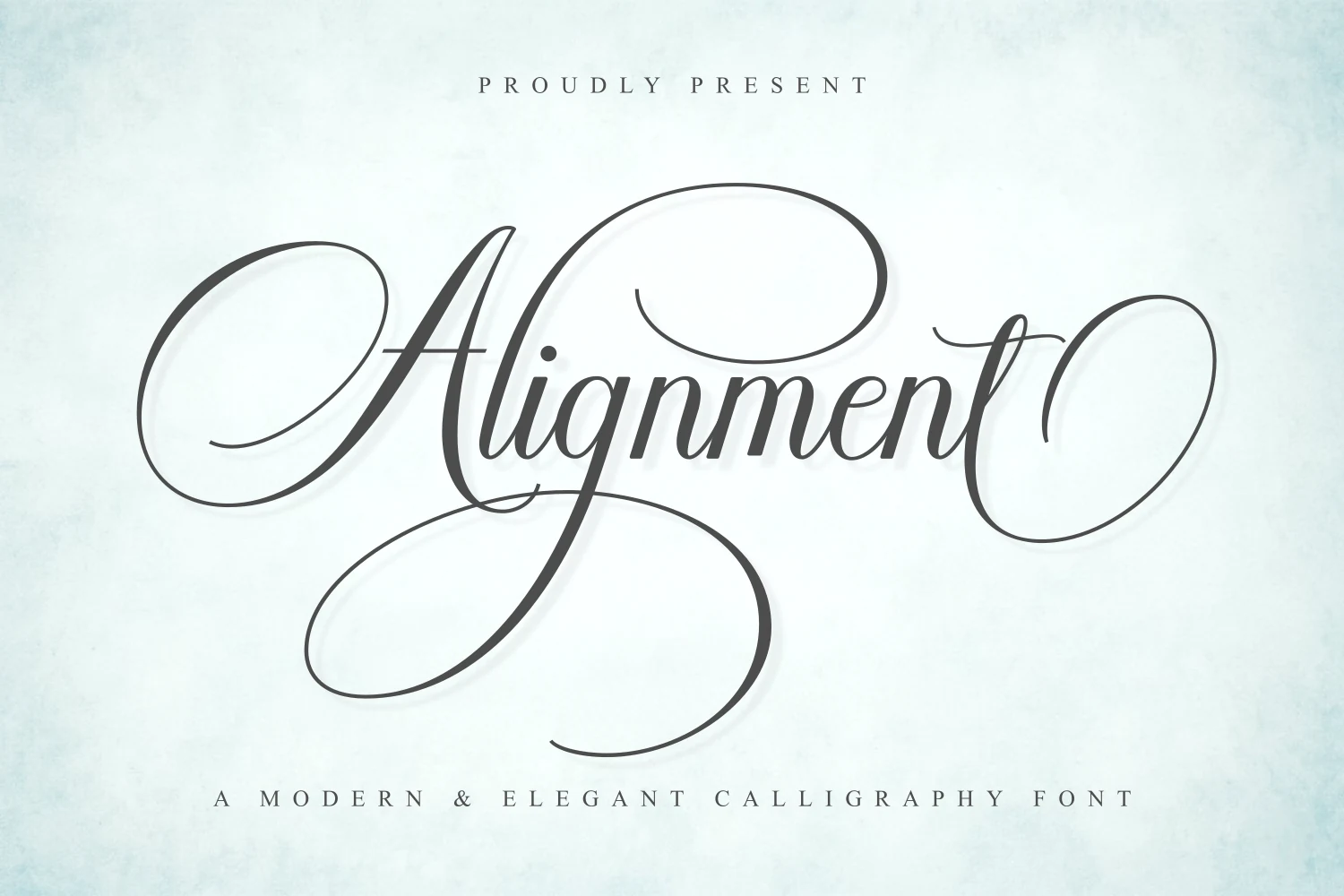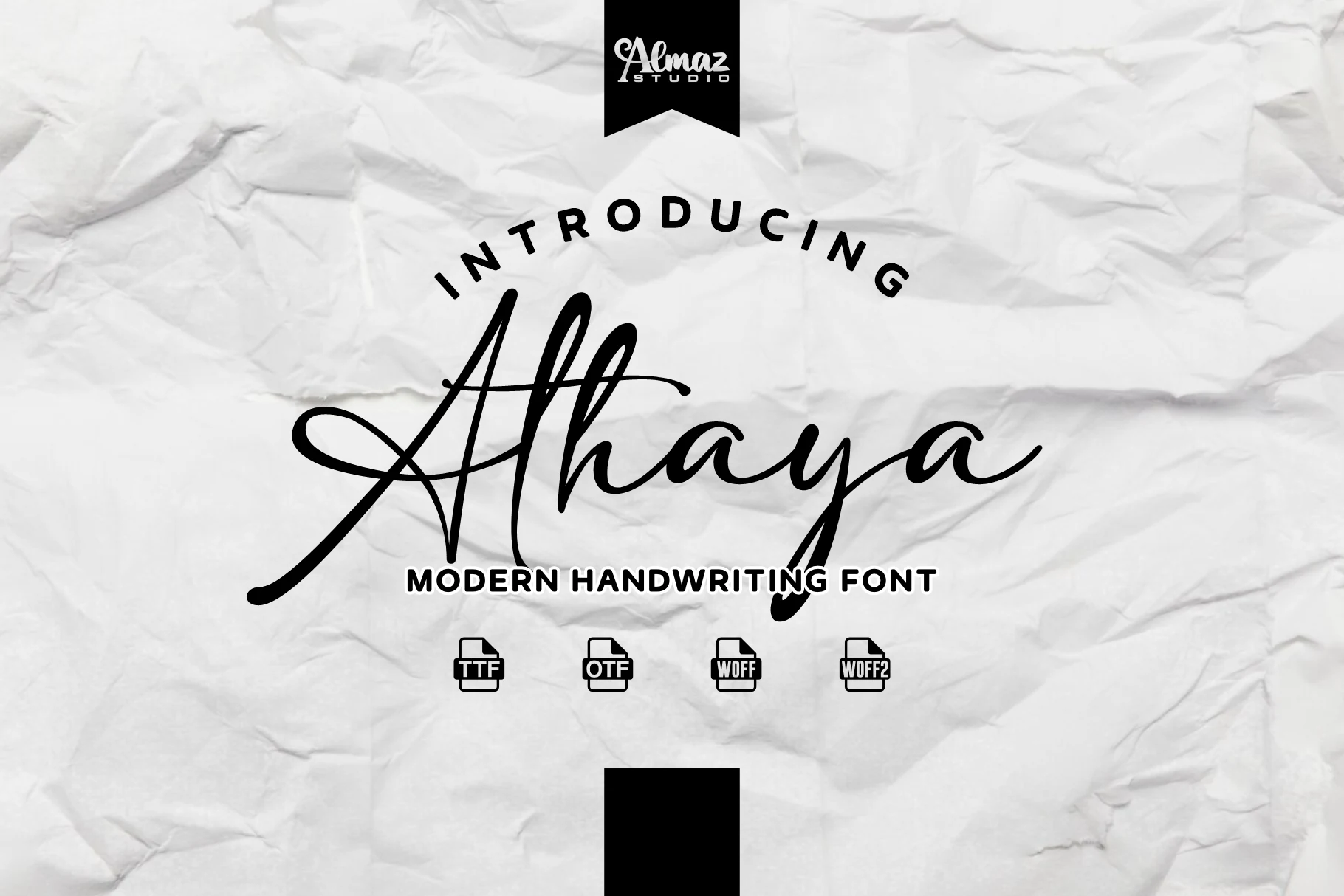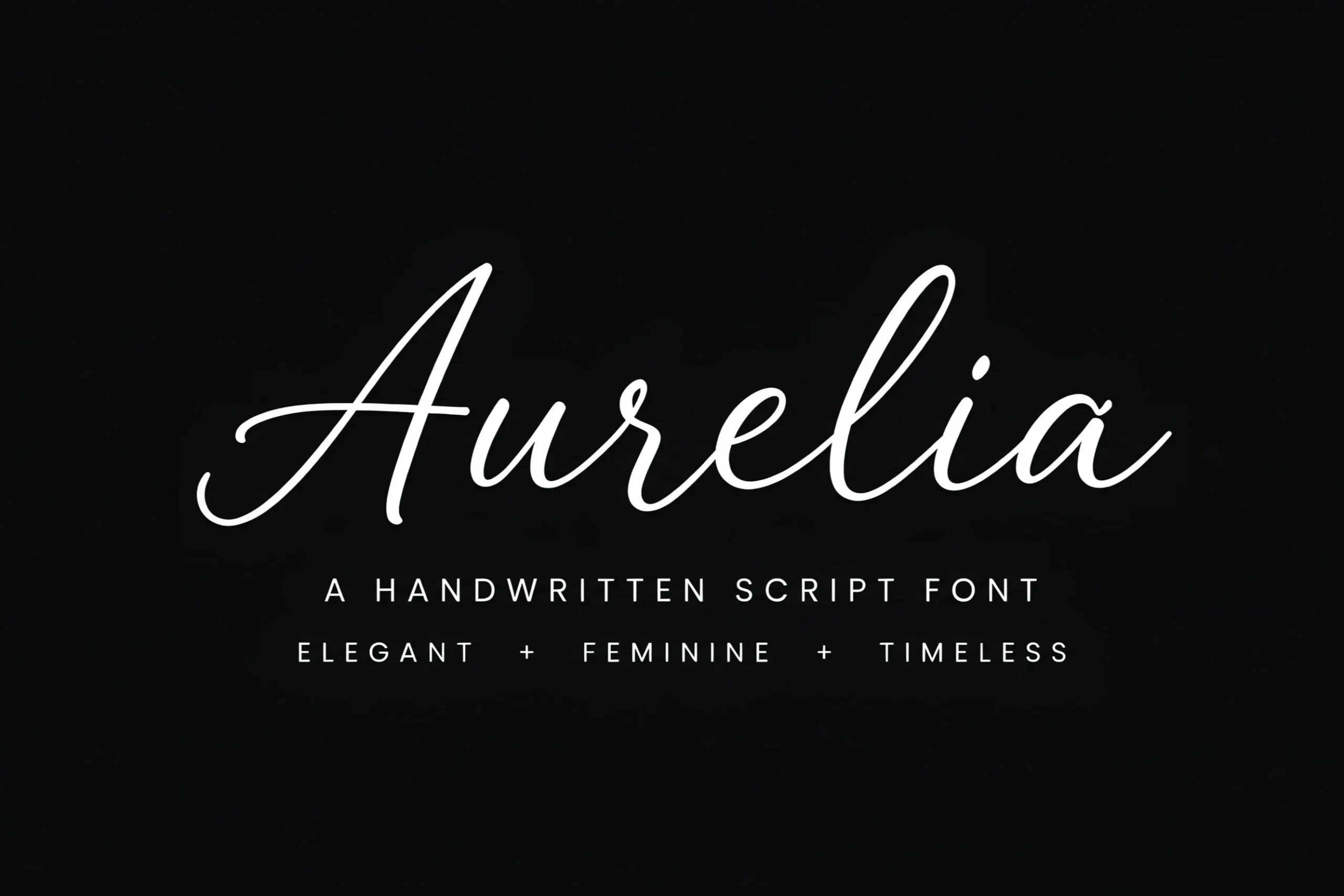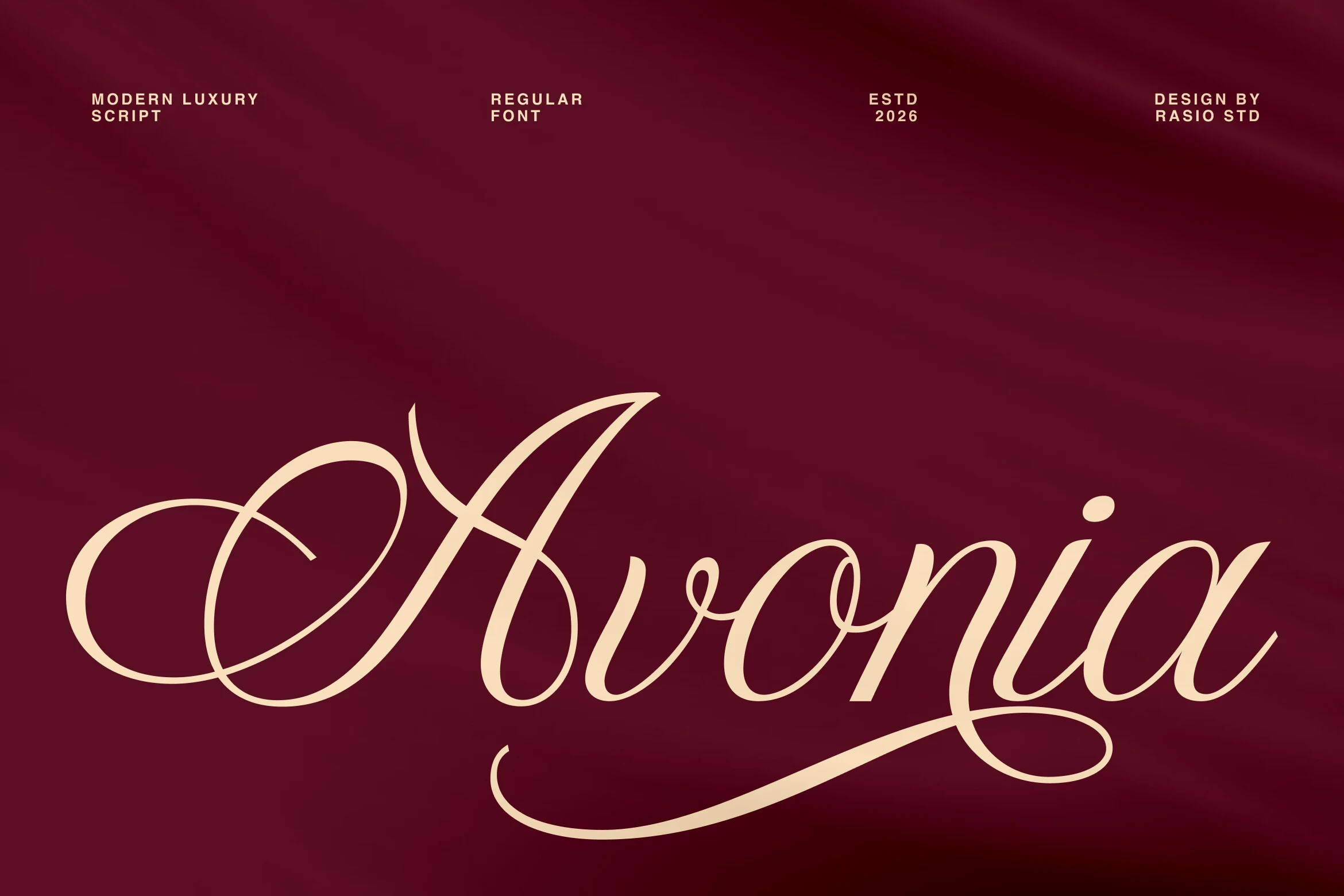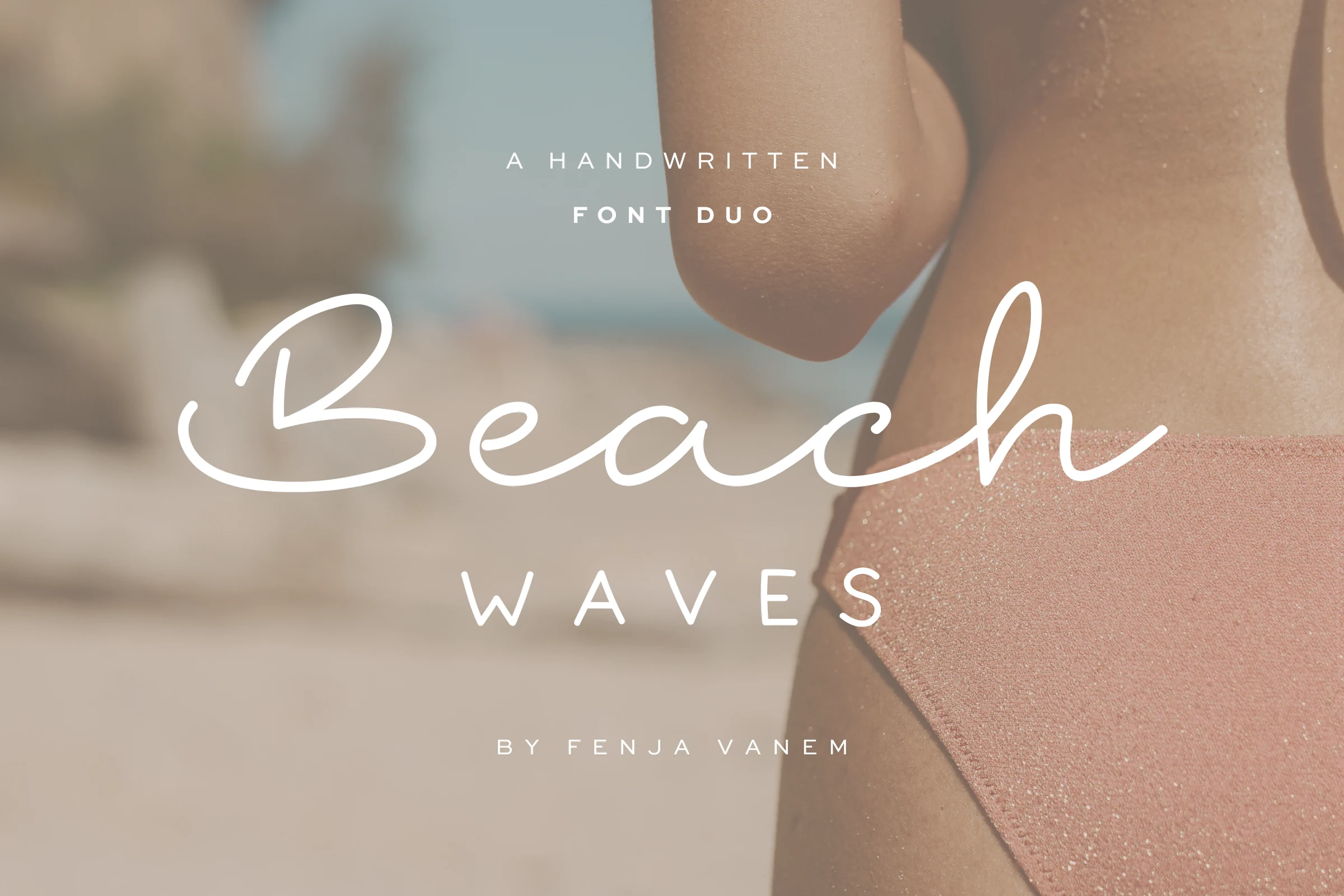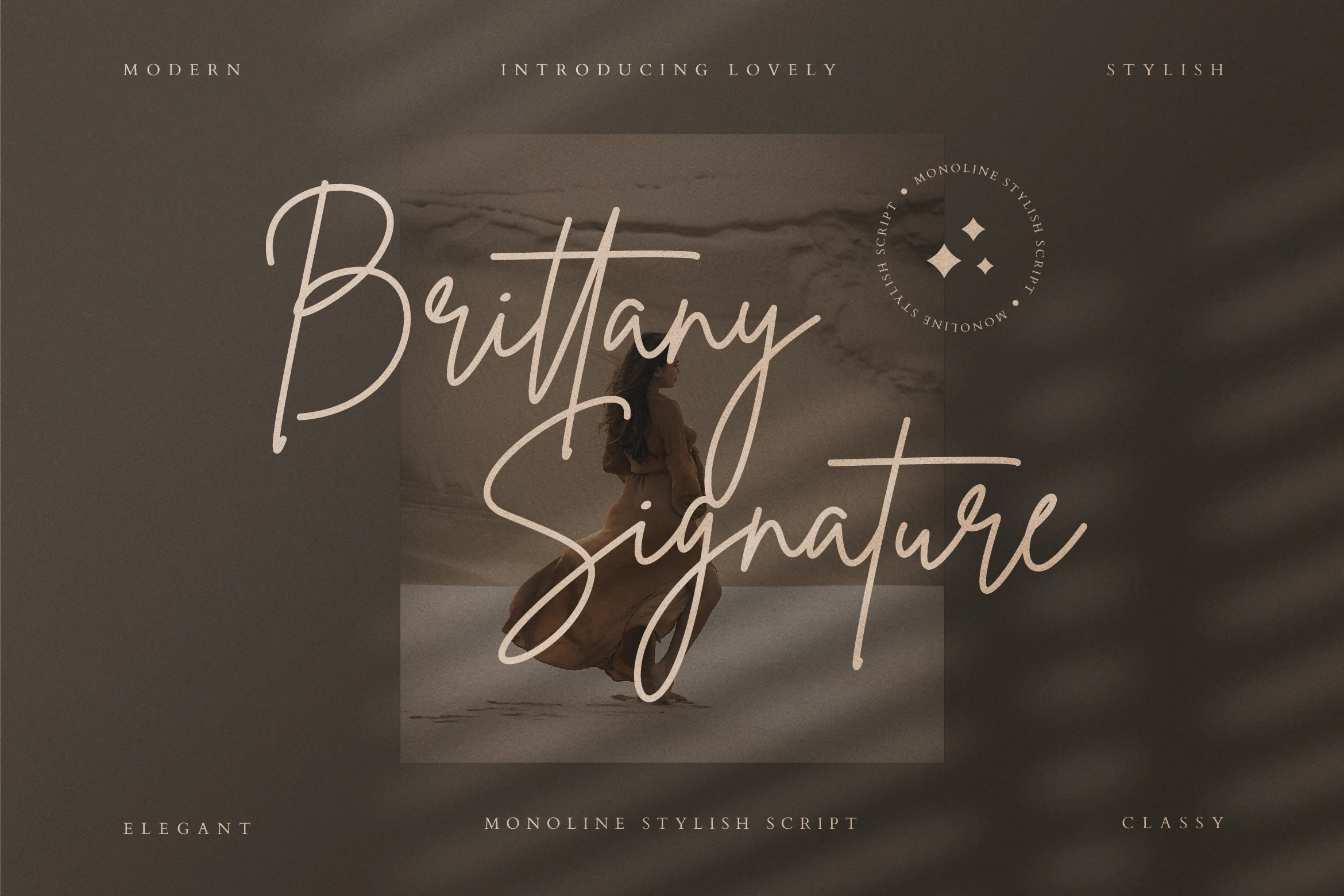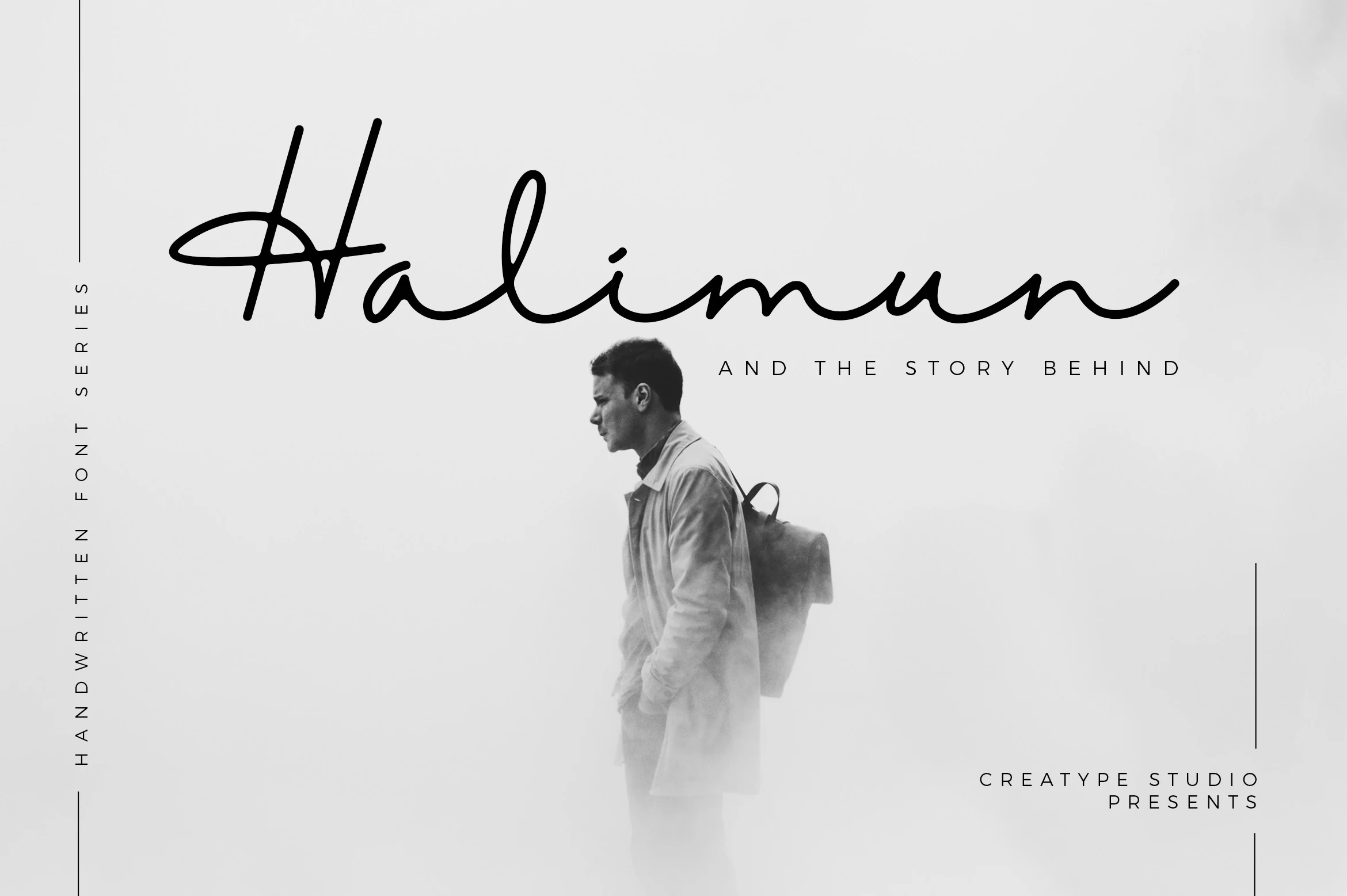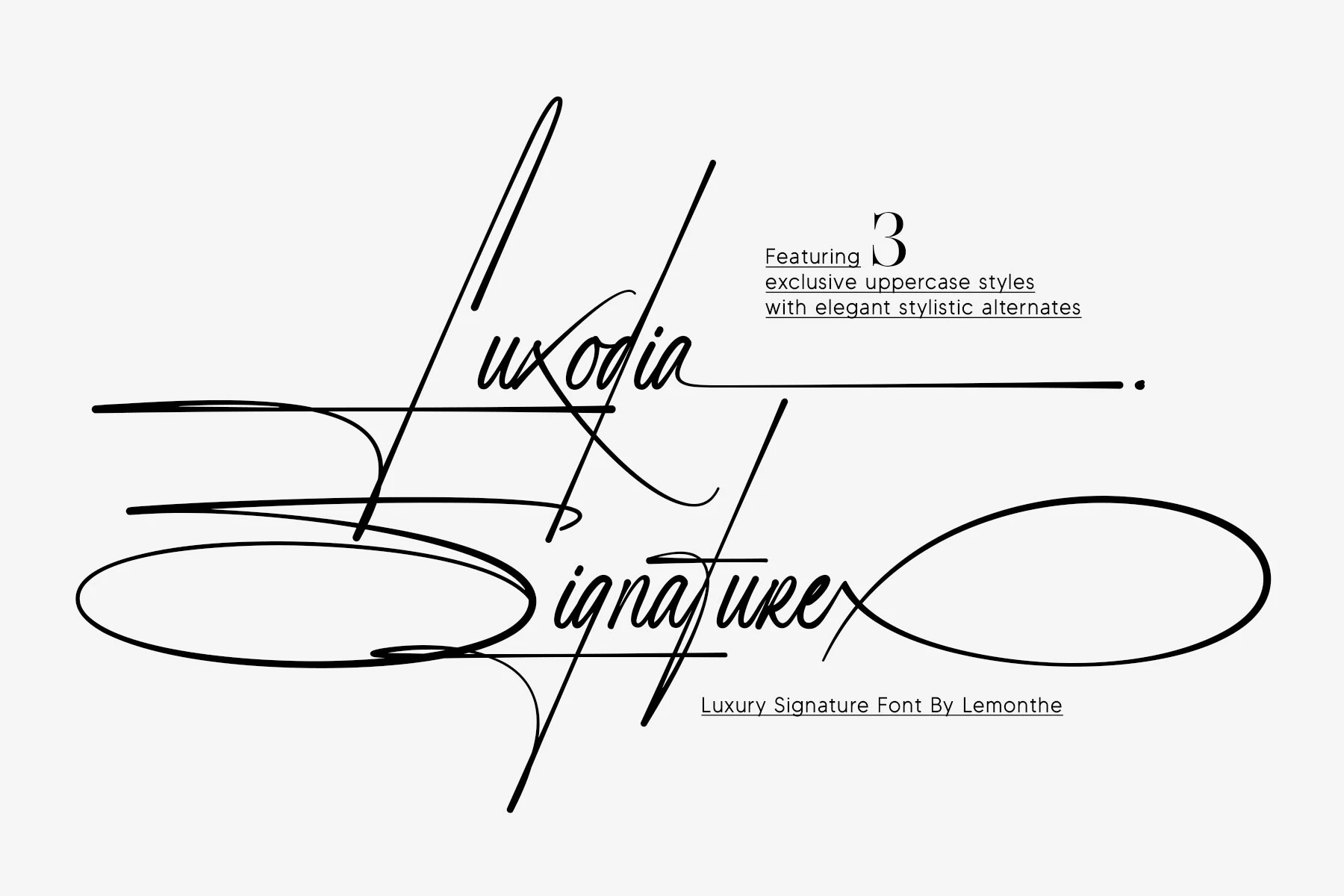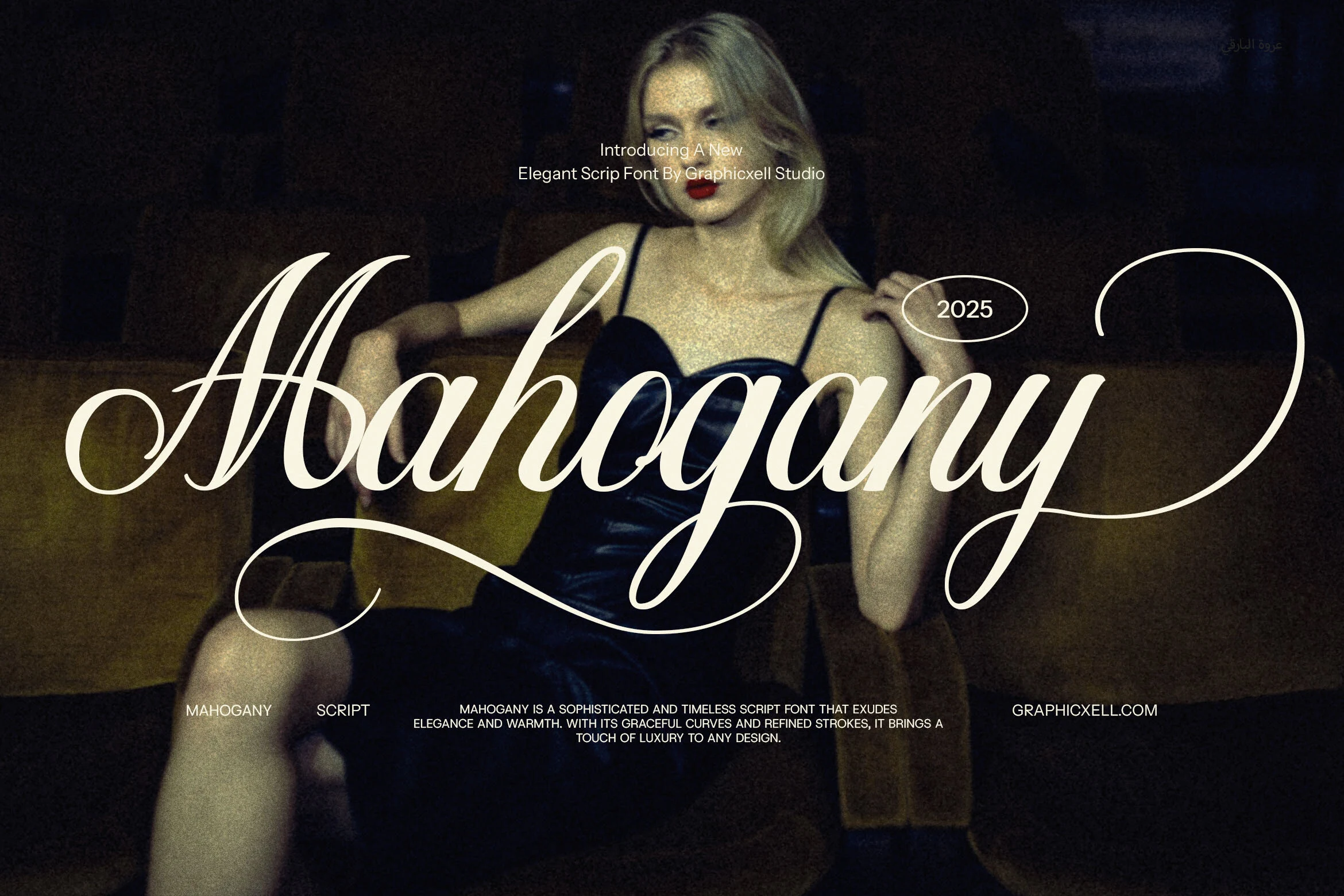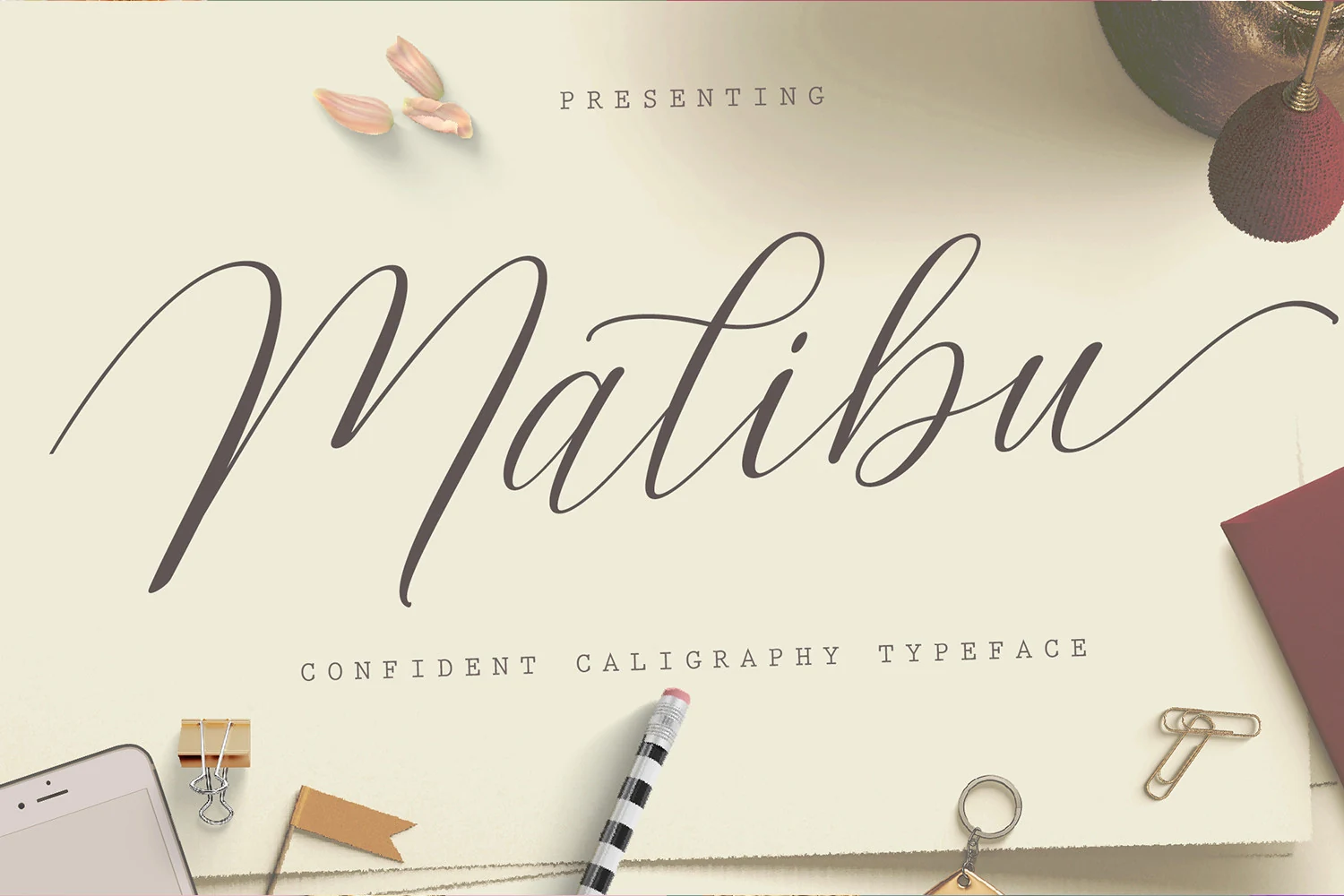
20 Elegant Script Fonts for Luxury Designs: A Practical Shortlist
Choosing from elegant script fonts for luxury designs starts with the job your typography must do. Consider the words, their final size, and the mood of the project. The options below are organized to help you compare useful directions before testing candidates in your own layout.
How to evaluate the options
Set the real headline, name, or label in each candidate. Check legibility at the final size, compare the capitals and repeated letters, and leave enough room for decorative details. Use a quieter companion font for long descriptions and other supporting text.
At a glance
Font Good starting point
Mahogany Font logos, invitations
Alignment Font logos, invitations
Gastonia Script Font invitations, wedding designs
Malibu Script Font logos, invitations
Handmade Calligraphy Font logos, invitations
Gadiani Font logos, invitations
Luxodia Signature Font logos, business cards
Aurelia Font logos, beauty branding
Brittany Signature Script Font logos, personal branding
Sign Rathi Font logos, personal branding
Halimun Font logos, personal branding
Santa Catalina Font logos, wedding designs
Abigail Font logos, invitations
Oneliner Font logos, packaging
Ideas Font invitations, wedding designs
Beach Waves Duo Font logos, social media graphics
Simple Stylish Font logos, packaging
Avonia Font logos, editorial designs
Athaya Font logos, packaging
Amastay Font logos, invitations
Font picks
Mahogany Font for logos
Mahogany Font preview with ivory elegant script lettering, high-contrast strokes, and long flowing swashes
Mahogany Font is worth testing for logos, invitations, and wedding designs. Look for strong contrast between thick and thin strokes and flowing script forms when comparing it with other options. Check the thinnest strokes at the final display size.
Alignment Font for logos
Alignment Font preview with gray elegant calligraphy lettering, oversized swashes, and thin high-contrast strokes
For logos, invitations, and wedding designs, consider Alignment Font. Its design draws on strong contrast between thick and thin strokes and serif details. Check the thinnest strokes at the final display size.
Gastonia Script Font for invitations
Gastonia Script Font preview with elegant black calligraphy lettering, high-contrast strokes, and large looping swashes
Gastonia Script Font can anchor invitations, wedding designs, and editorial designs. The main visual cues are strong contrast between thick and thin strokes and serif details. Check the thinnest strokes at the final display size.
Malibu Script Font for logos
Malibu Script Font preview with taupe calligraphy lettering, tall looping ascenders, and smooth flowing strokes
Malibu Script Font is worth testing for logos, invitations, and signage. Look for serif details and flowing script forms when comparing it with other options. Inspect fine details before using it in small print.
Handmade Calligraphy Font for logos
Handmade Calligraphy Font preview in black high-contrast script with ornate swashes and looping flourishes
For logos, invitations, and wedding designs, consider Handmade Calligraphy Font. Its design draws on strong contrast between thick and thin strokes and flowing script forms. Check the thinnest strokes at the final display size.
Gadiani Font for logos
Gadiani Font preview in white elegant calligraphy with sweeping swashes on a black background
Gadiani Font can anchor logos, invitations, and business cards. The main visual cues are flowing script forms. Test letter joins and capitals in your actual wording.
Luxodia Signature Font for logos
Luxodia Signature Font preview with thin black signature lettering and oversized looping swashes
Luxodia Signature Font is worth testing for logos, business cards, and fashion branding. Look for an even, monoline stroke and flowing script forms when comparing it with other options. Test connected letters in the exact words you plan to use.
Aurelia Font for logos
Aurelia Font preview with thin white handwritten script and elegant flowing letters on a black background
For logos, beauty branding, and fashion branding, consider Aurelia Font. Its design draws on rounded letter shapes and serif details. Try it at both headline and label size to judge its clarity.
Brittany Signature Script Font for logos
Brittany Signature Script Font preview with soft monoline signature lettering, tall loops, and flowing handwritten strokes
Brittany Signature Script Font can anchor logos, personal branding, and fashion branding. The main visual cues are an even, monoline stroke and flowing script forms. Test connected letters in the exact words you plan to use.
Final checks before using a font